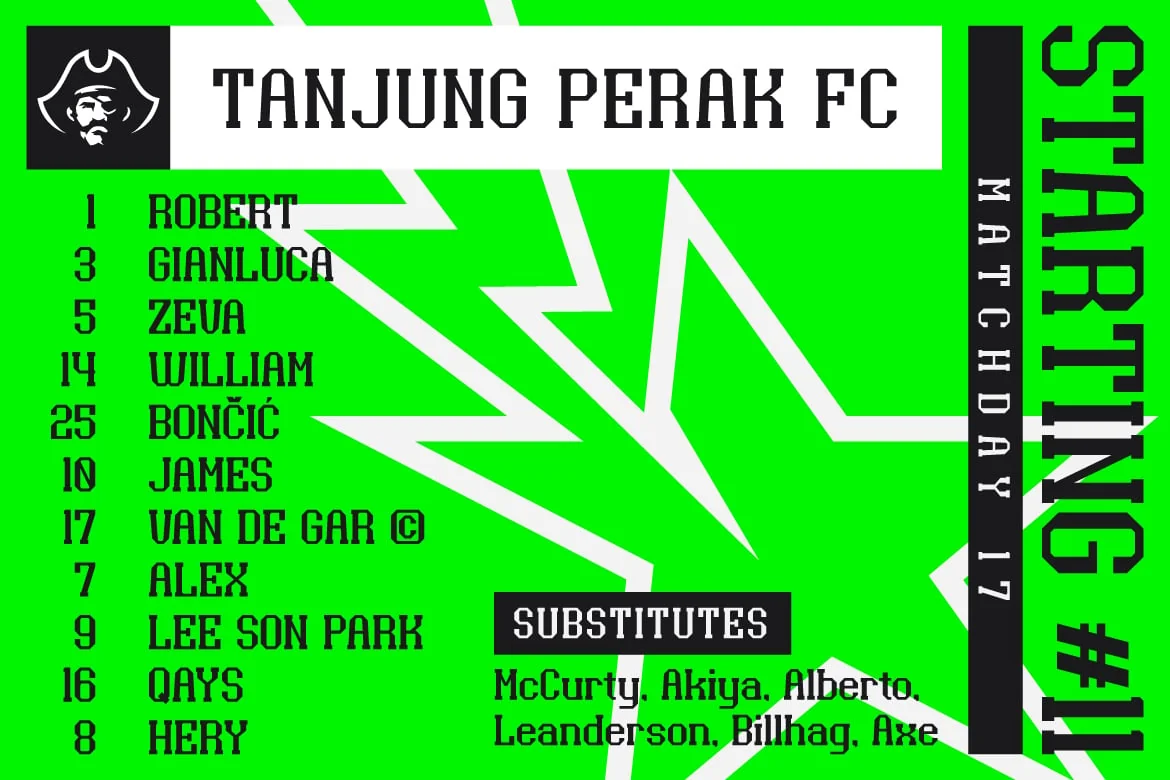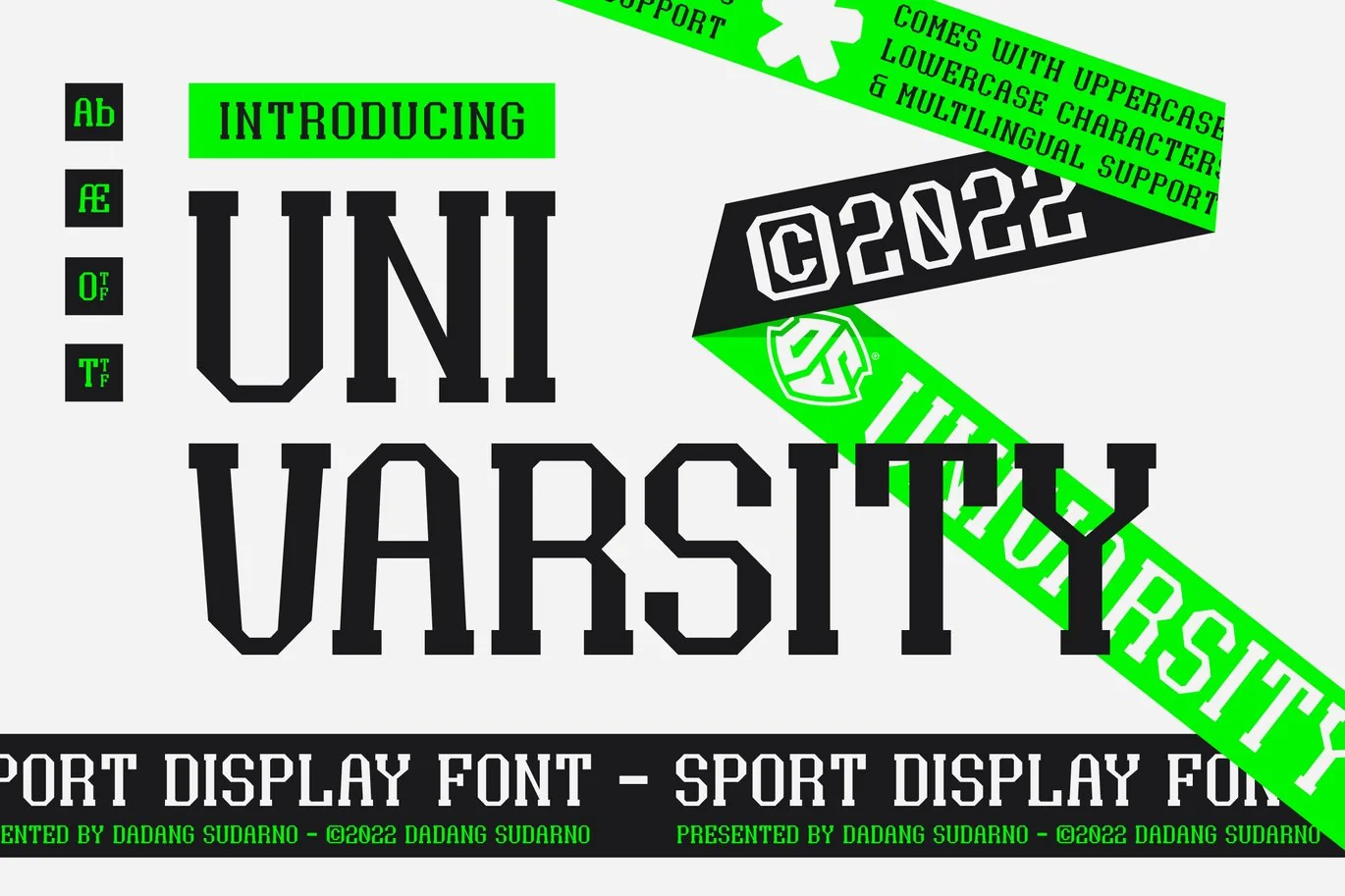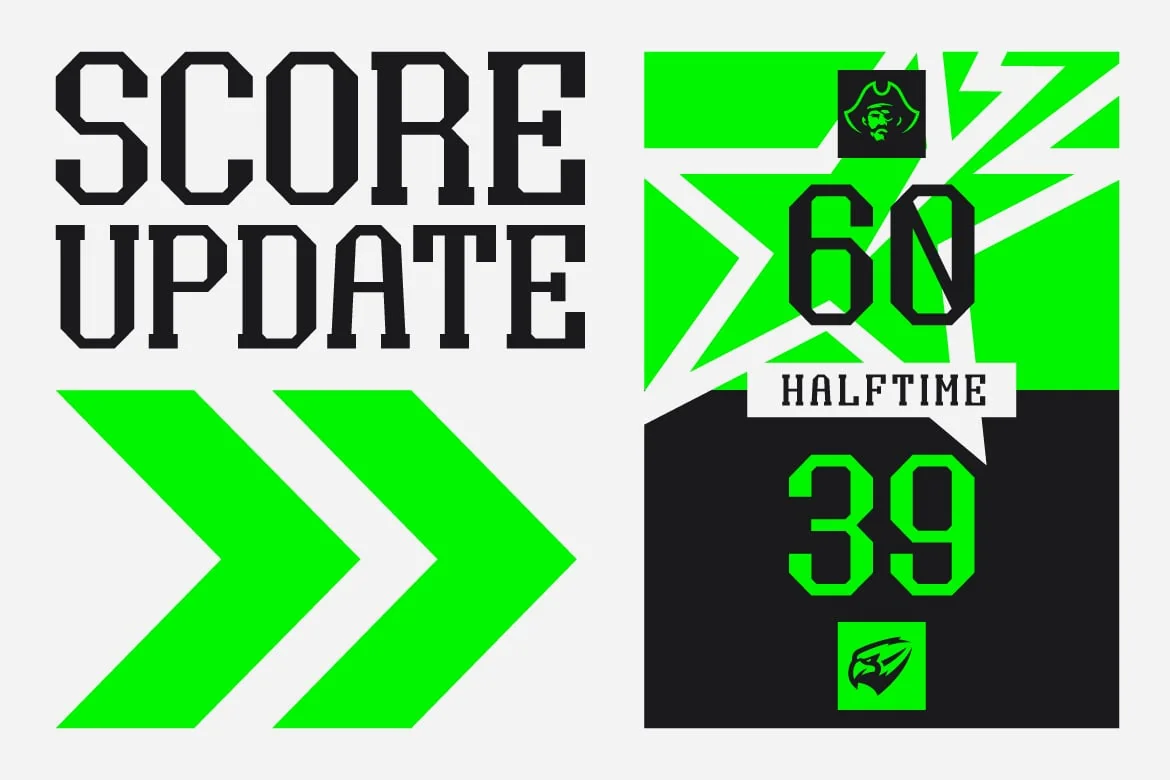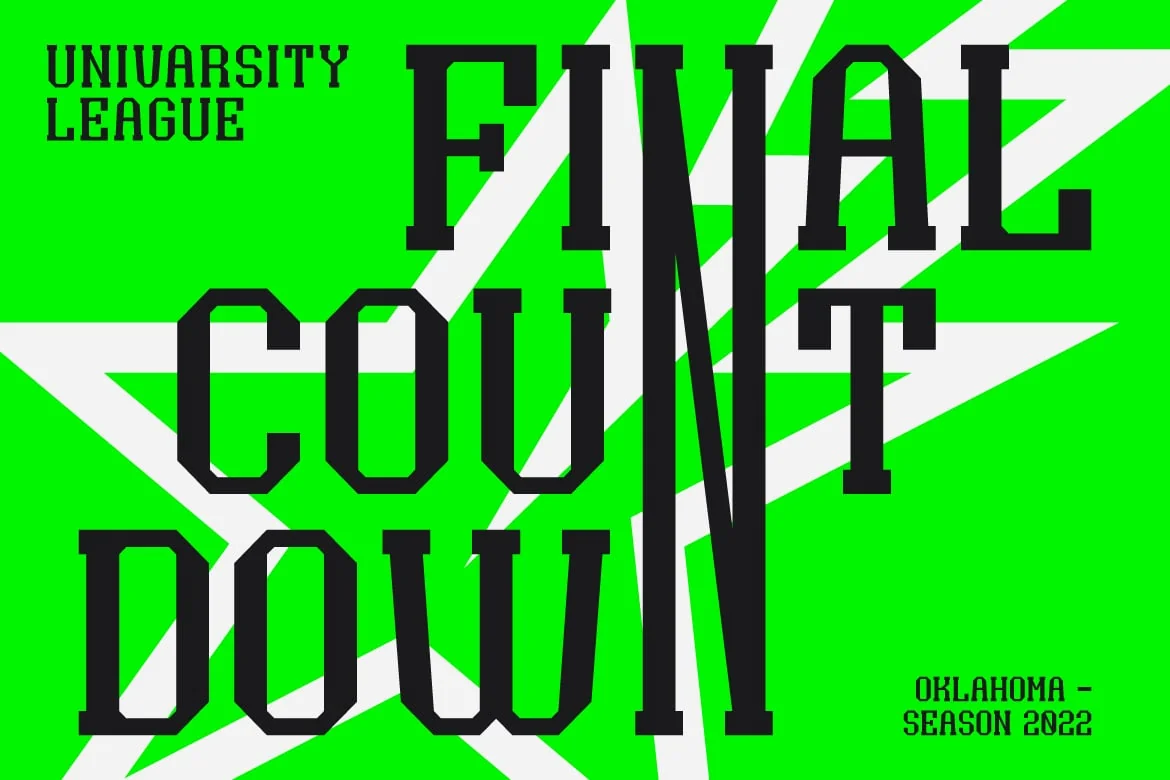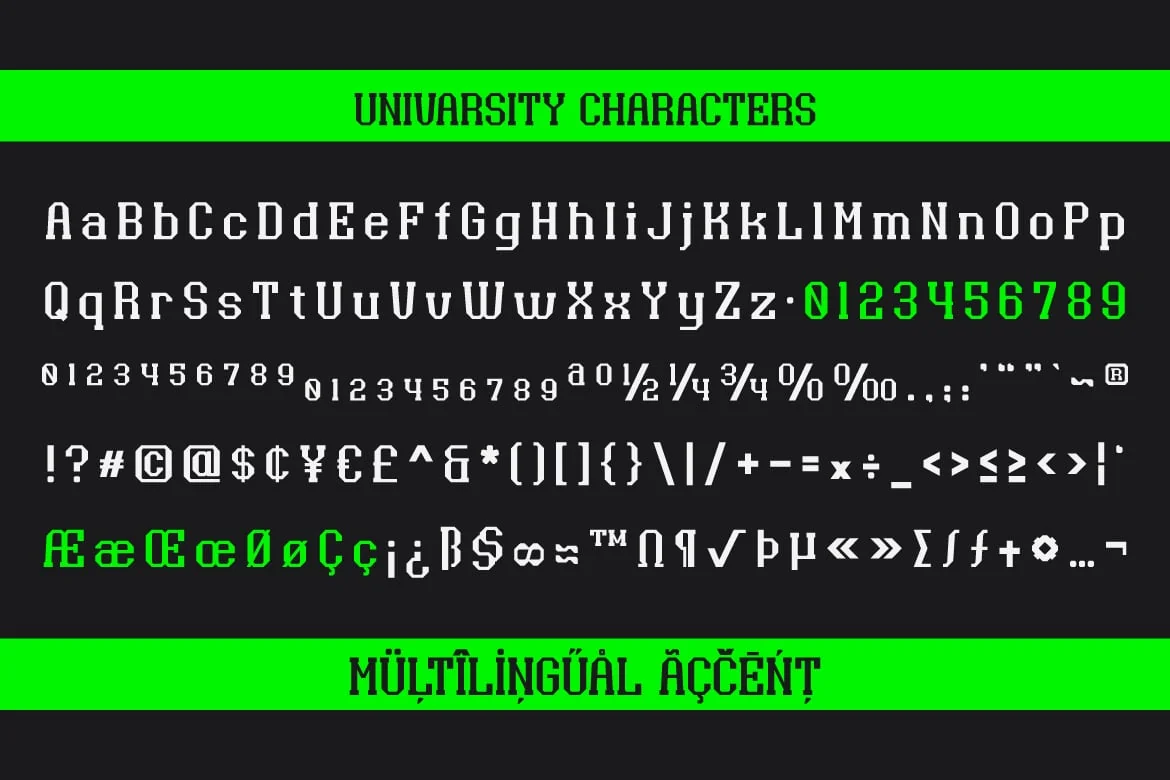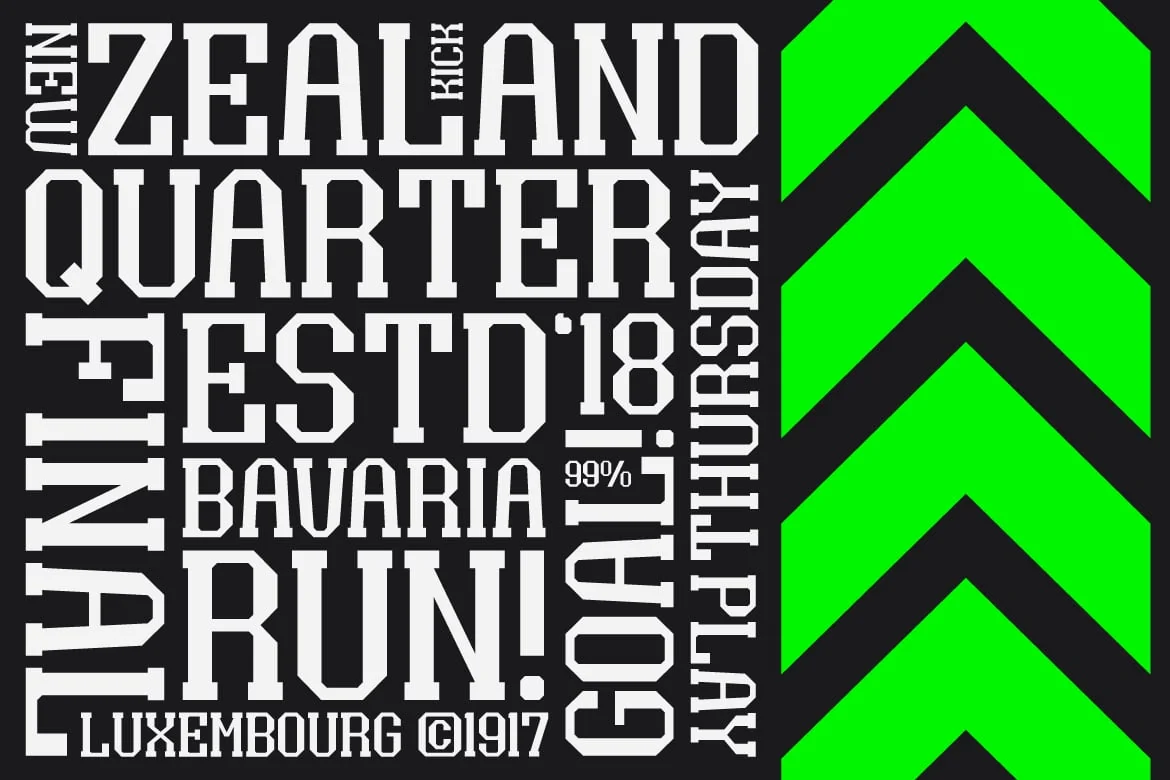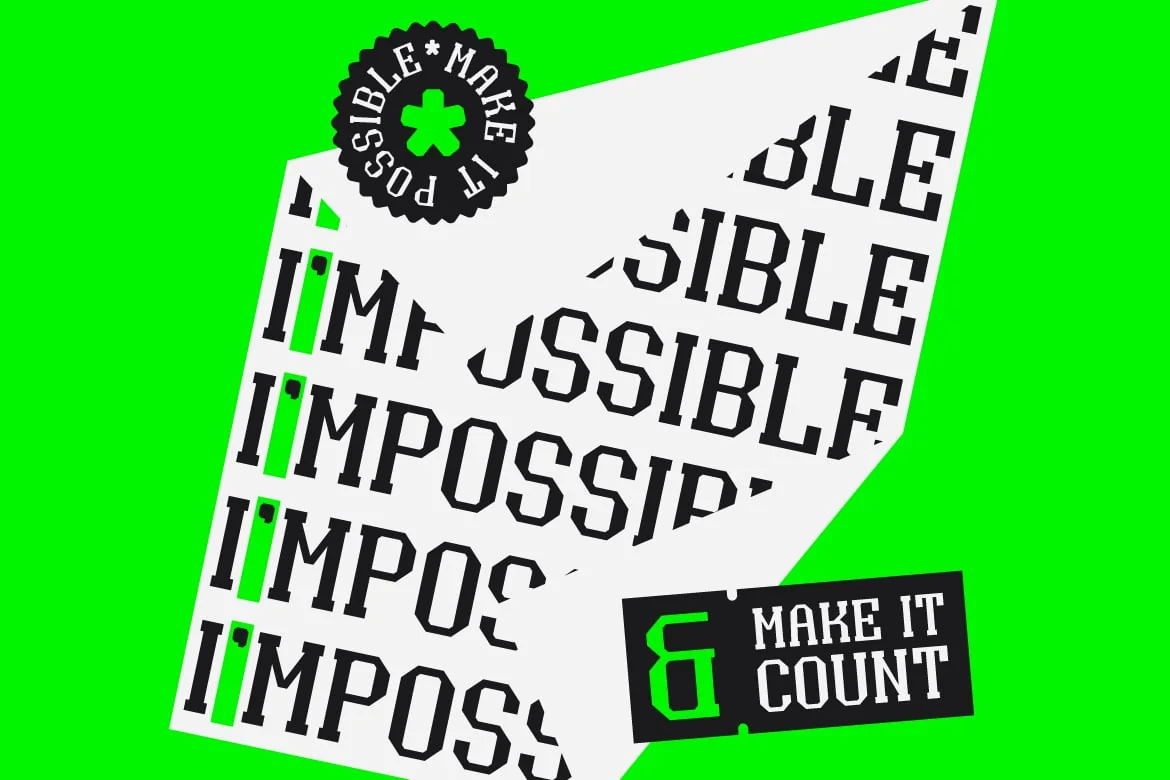
Univarsity – Sport Display Font
UNIVARSITY – Sport Display Font which includes uppercase – lowercase and multilingual support. It was created to be tall and aggressive. Easy tweaking shape make the headline, banner, tittle, poster, typography and wordmark more outstanding when it is used. Suitable for sport, athletic, jersey, esport and branding design.